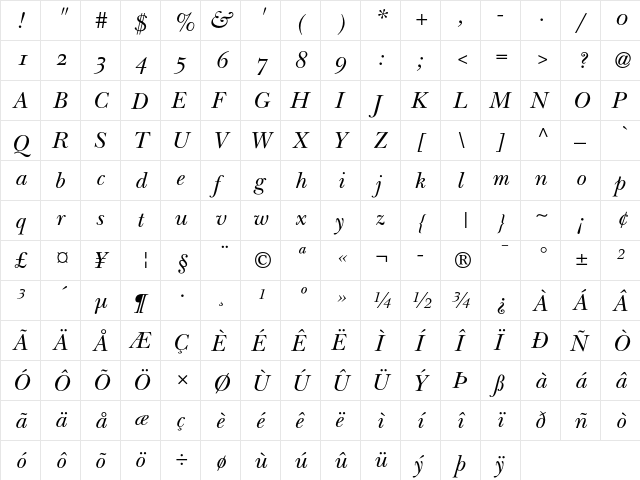
ITC New Baskerville Italic OsF Font Preview
ITC New Baskerville Italic OsF
Design Context for ITC New Baskerville Typeface
ITC New Baskerville is a composed and adaptable typeface that performs quietly and consistently across a wide range of design contexts. The dynamic lean of this cut emphasises speed and emphasis in any layout.
Pro Tip: Try ITC New Baskerville for annotation and caption copy alongside an upright companion — the contrast in angle creates a dynamic but ordered typographic system.